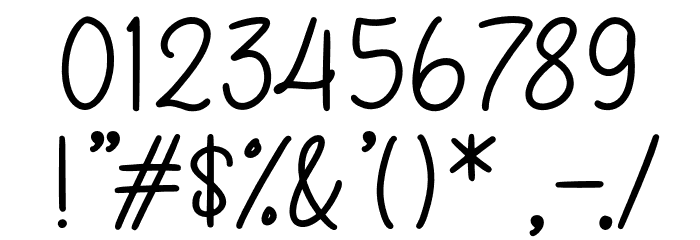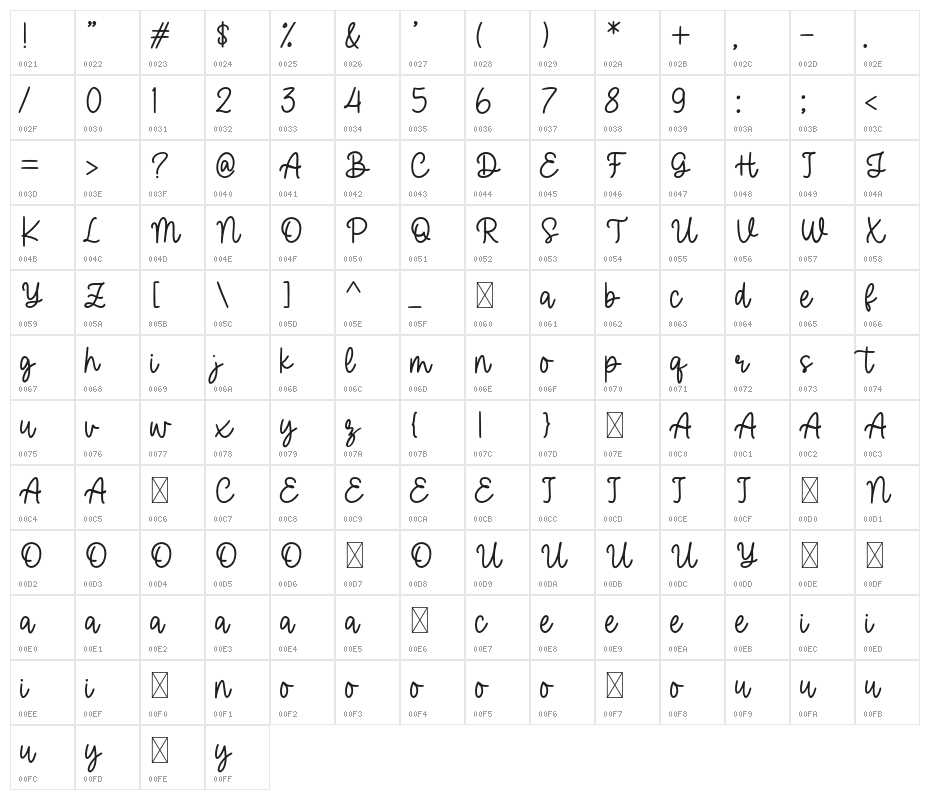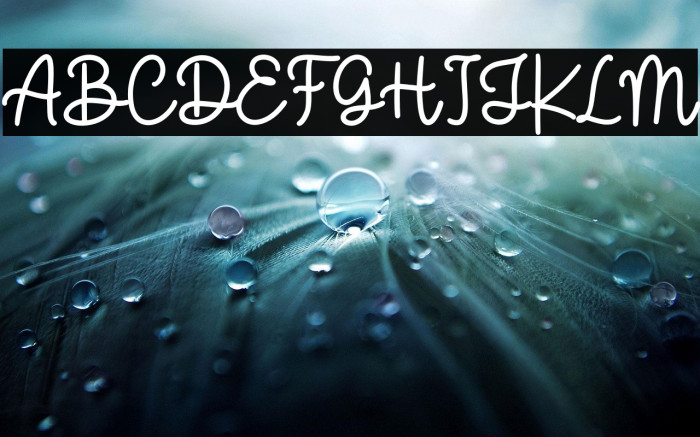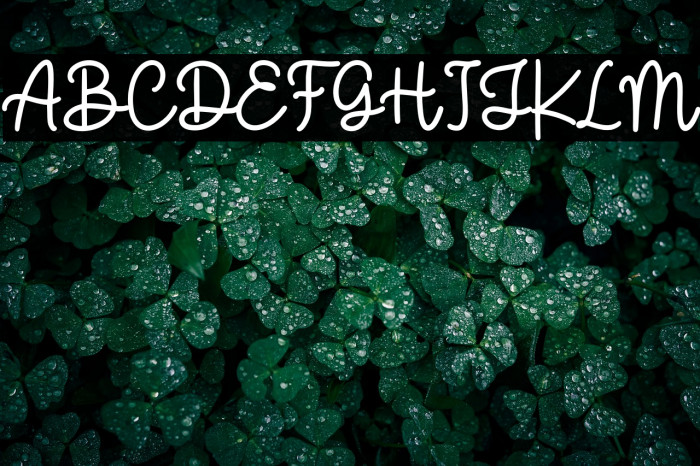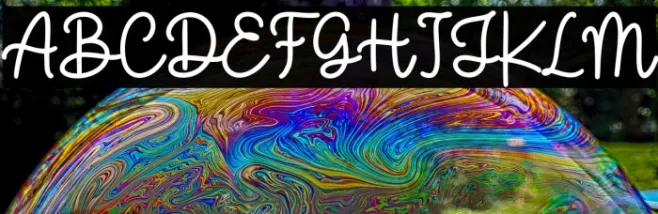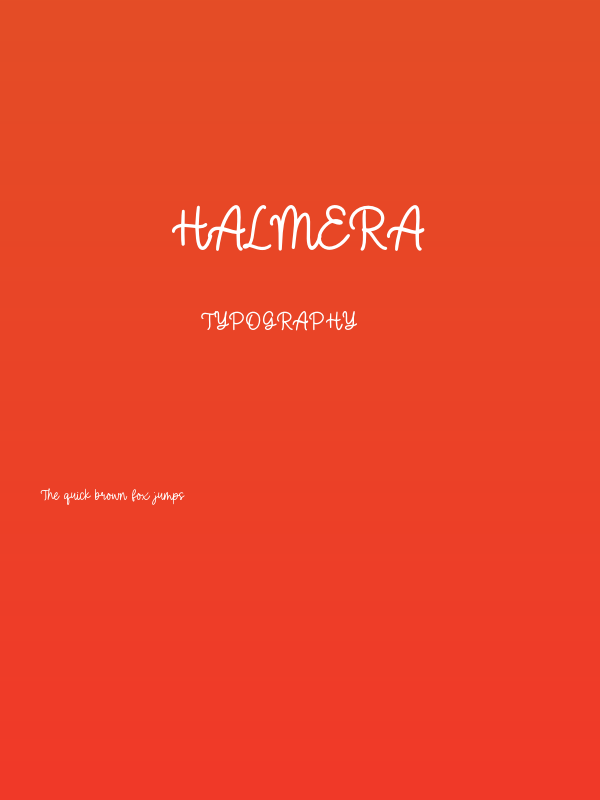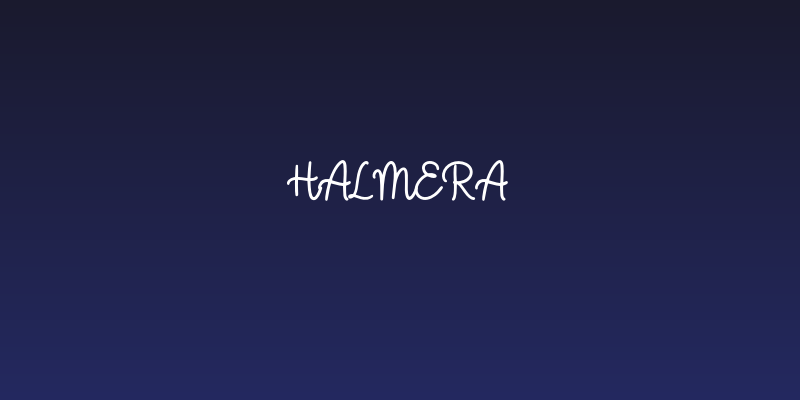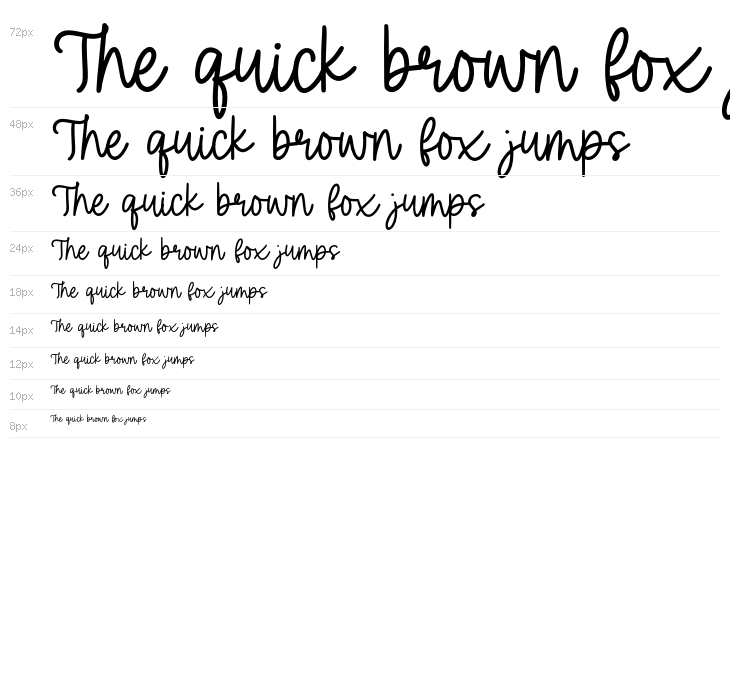
Halmera Font
Halmera Description
This font exhibits a playful and casual handwritten style, characterized by its flowing and connected letterforms. The uppercase letters maintain a consistent height, while the lowercase letters feature a slight slant, enhancing the informal aesthetic. The numerals are rounded and align well with the overall style, ensuring readability. Special characters are creatively integrated, maintaining the font's cohesive look. The strokes are moderately thick, providing a balanced contrast that is neither too bold nor too light, making it versatile for various design applications.
| Use Case | Logos, Invitations, Social Media Graphics |
| Proposed Projects | Ideal for personal branding, greeting cards, invitations, and social media graphics. |